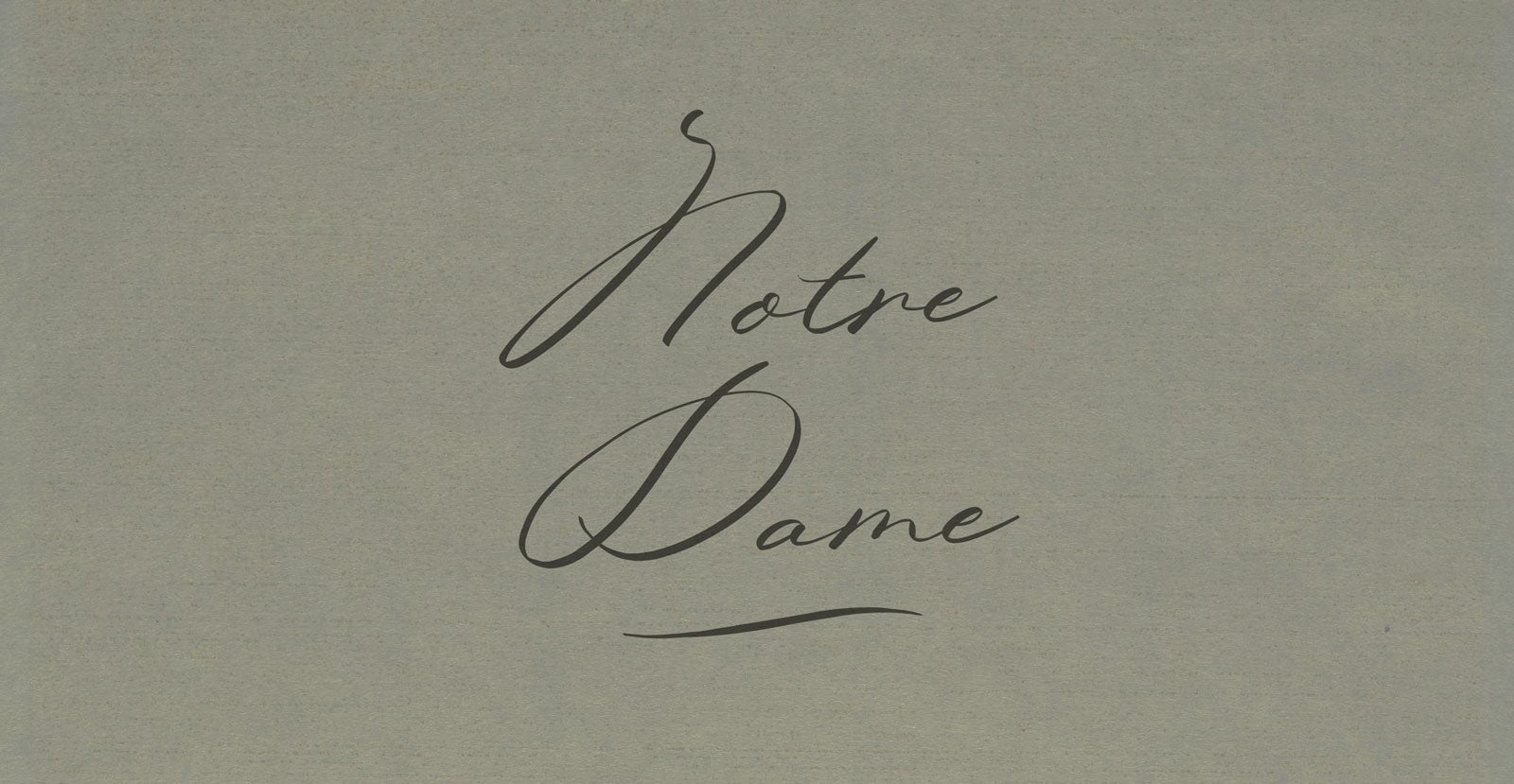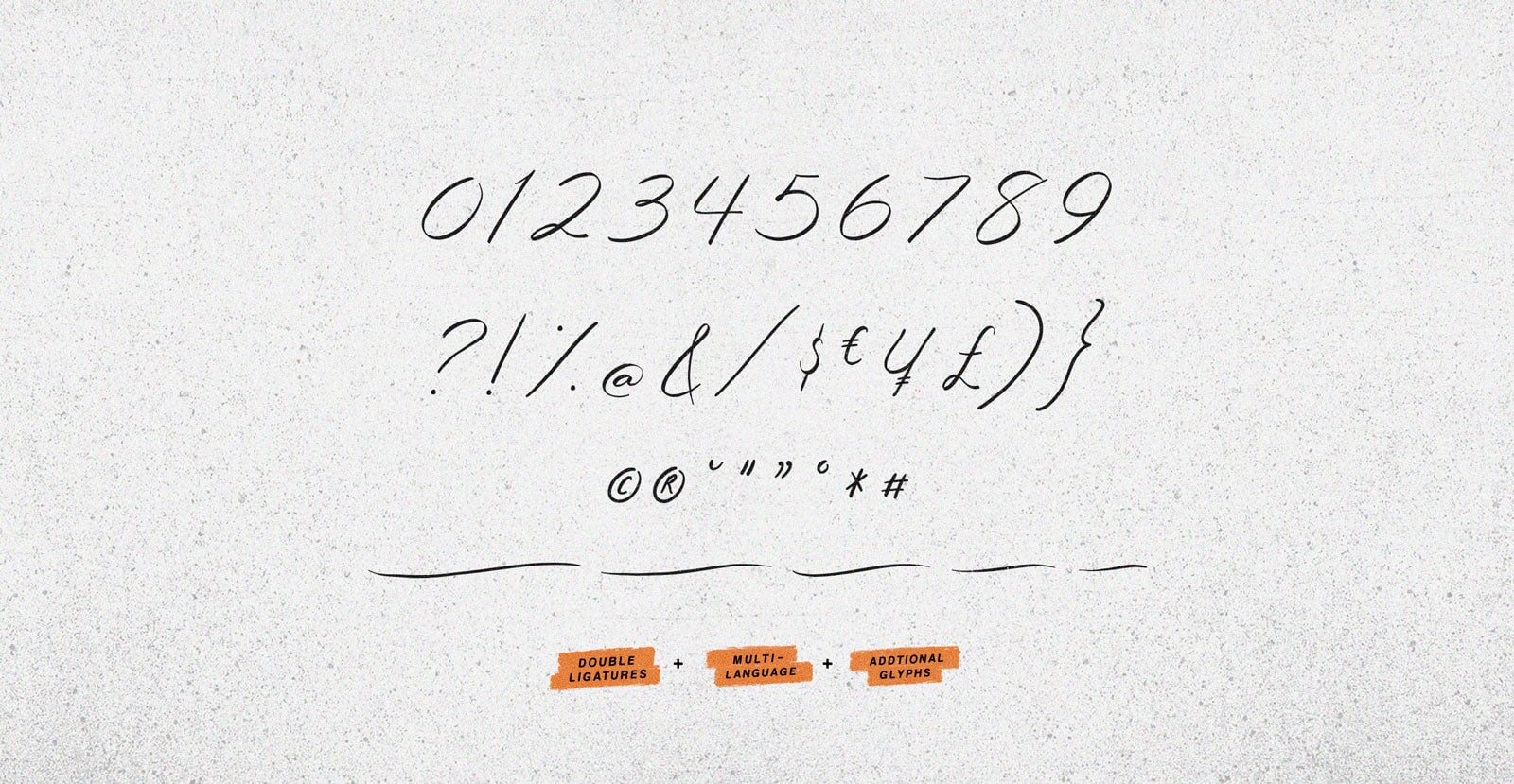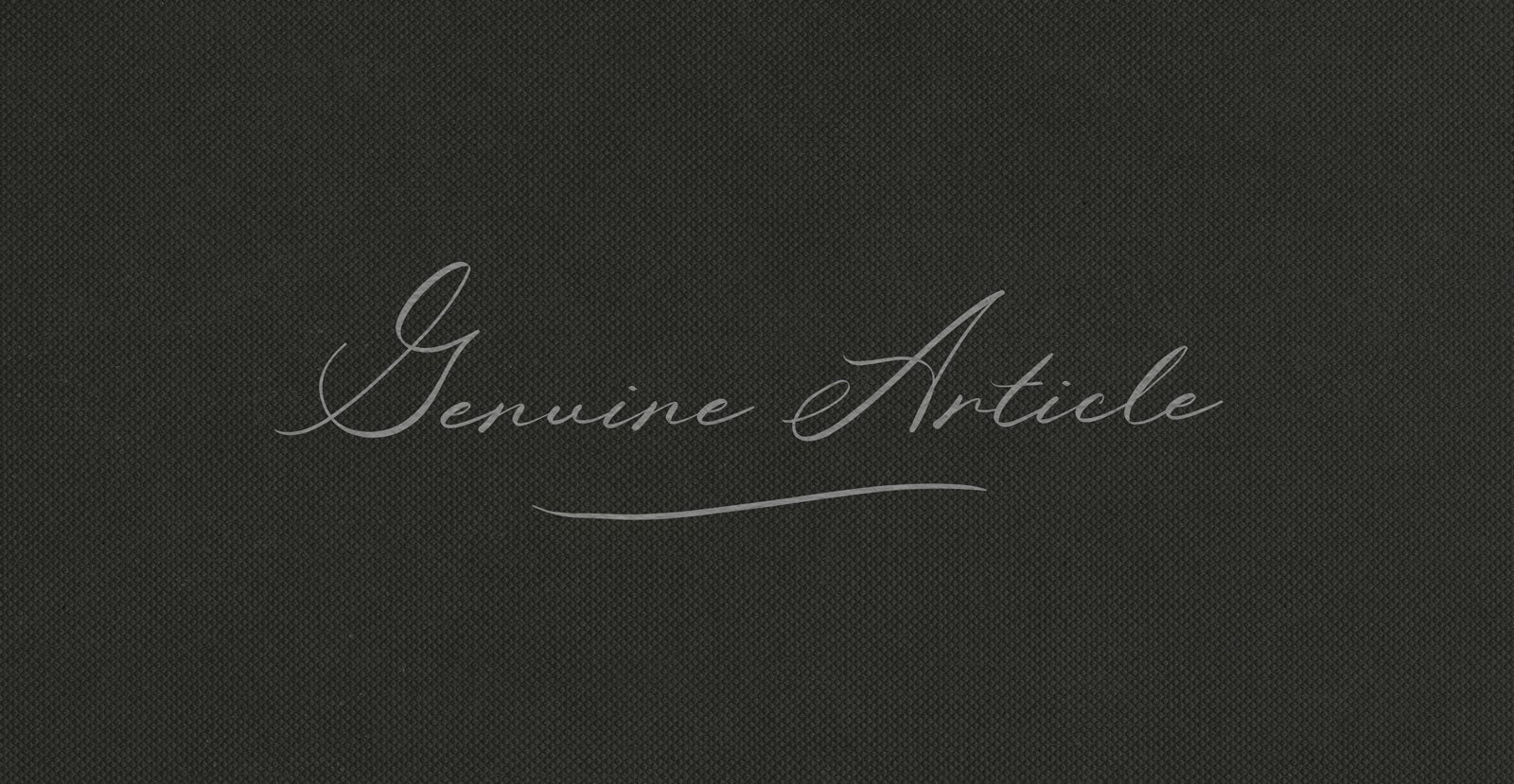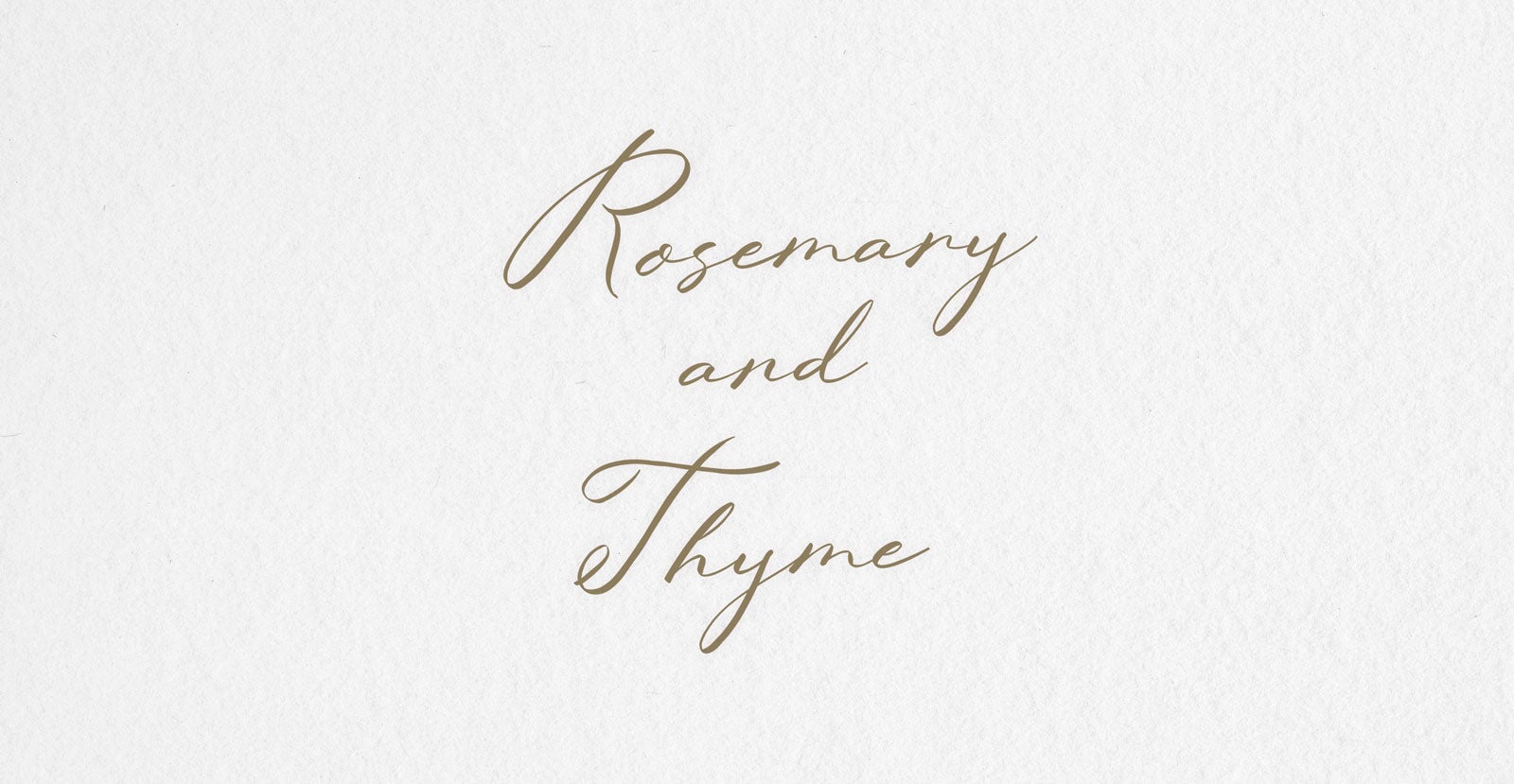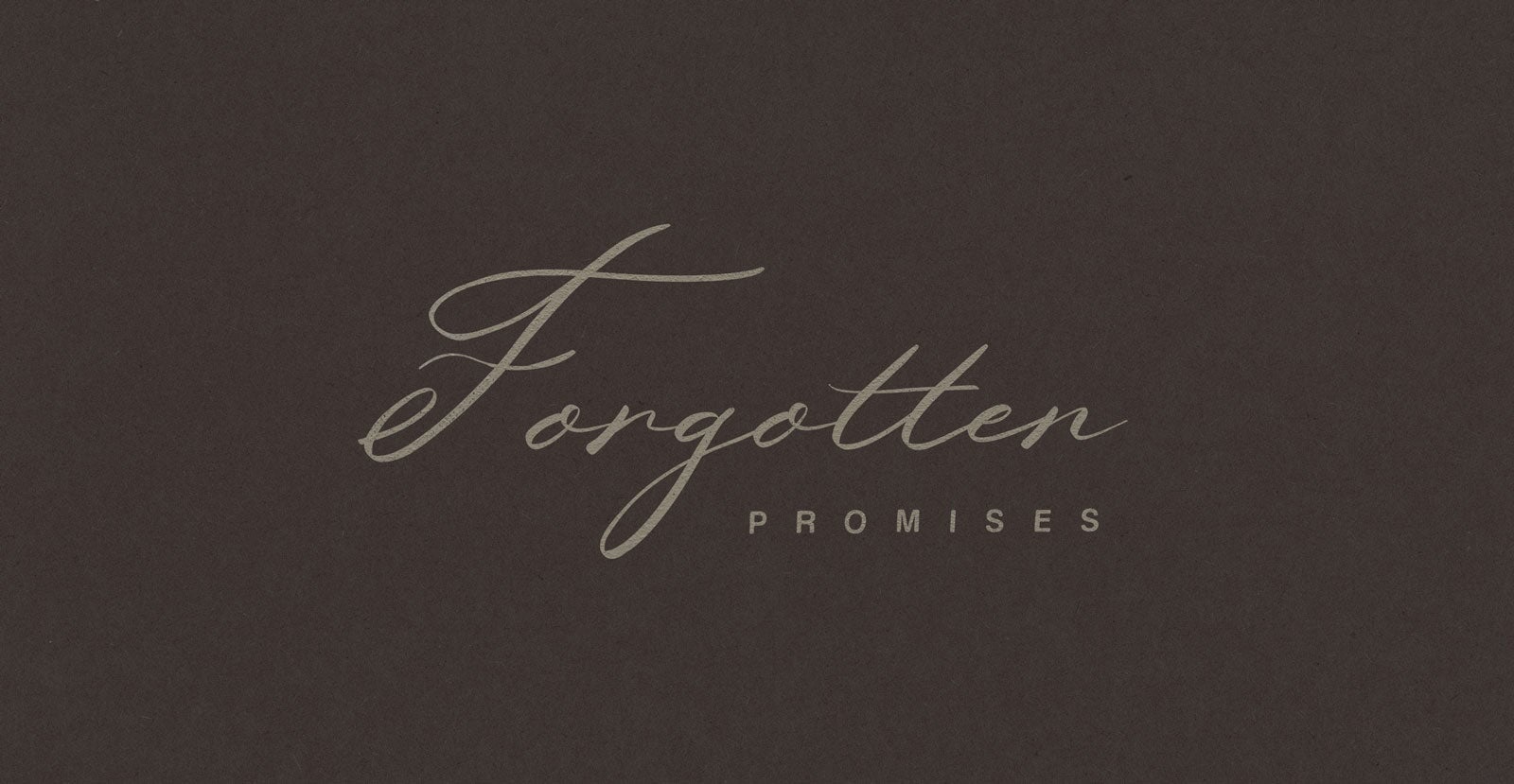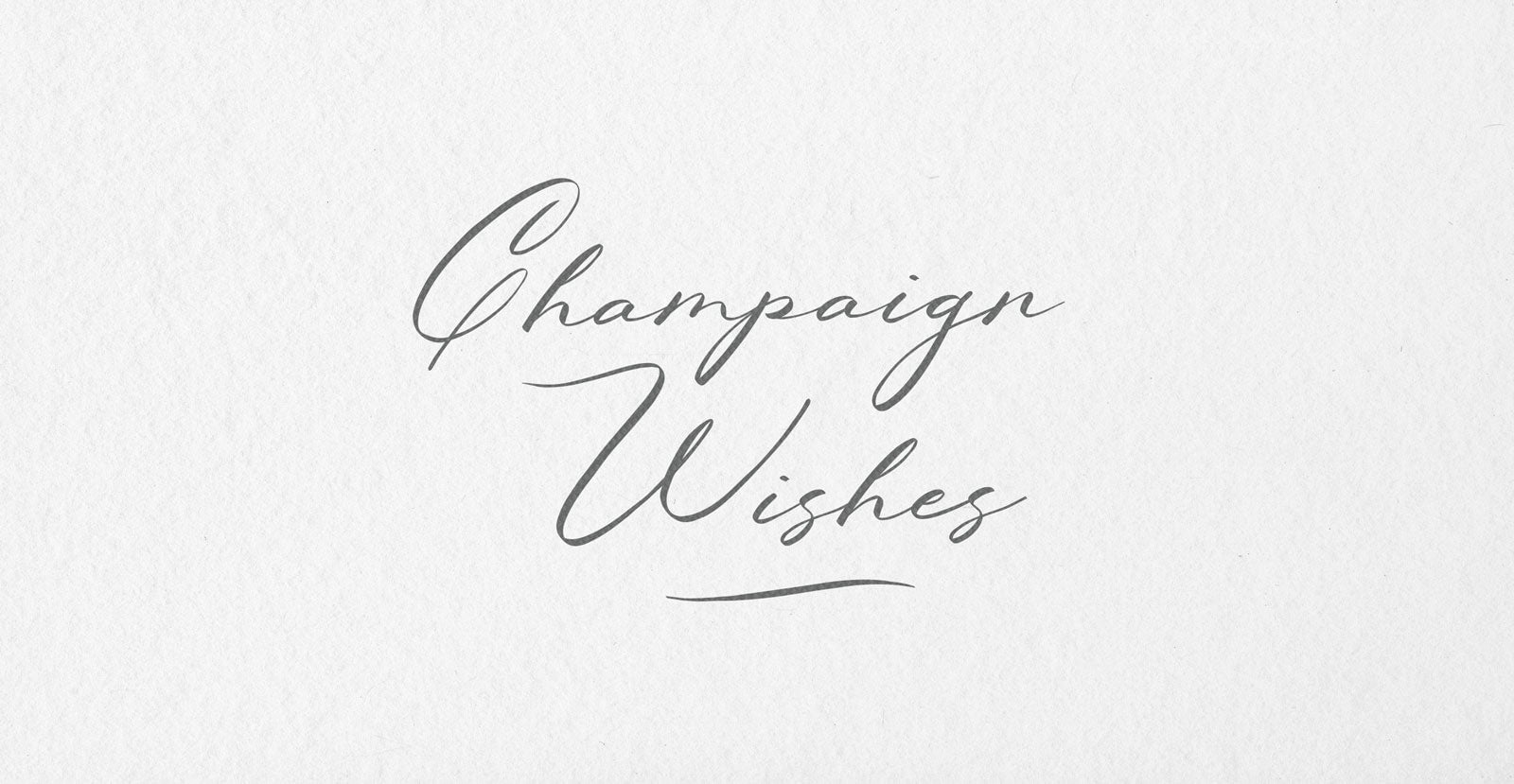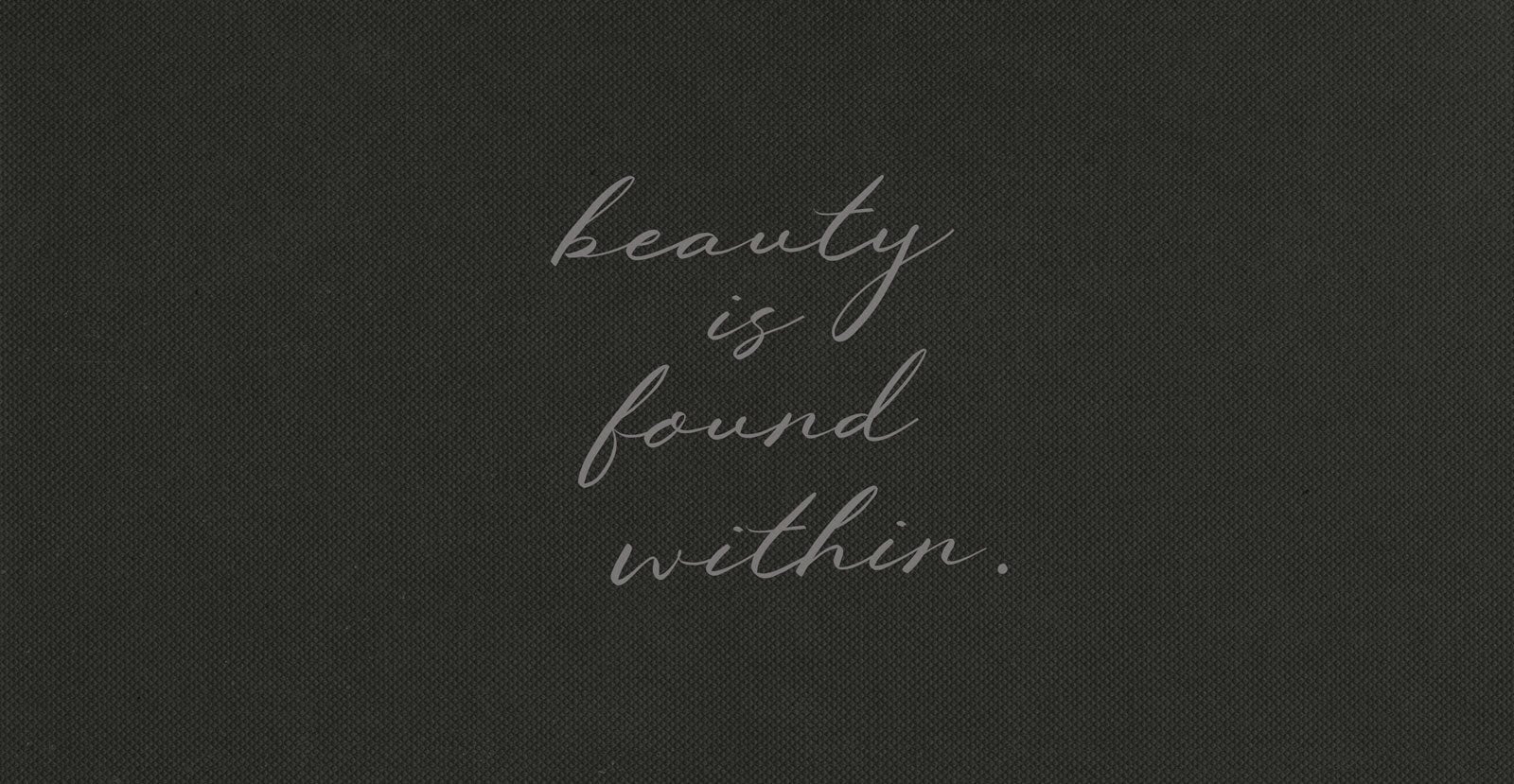
Notre Dame
Handwritten Pen Script Font
Notre Dame rises with grace. Sacred and scorched, worn by time but unshaken. It holds both fire and faith, beauty and ruin and standing not in spite of it all, but because of it.